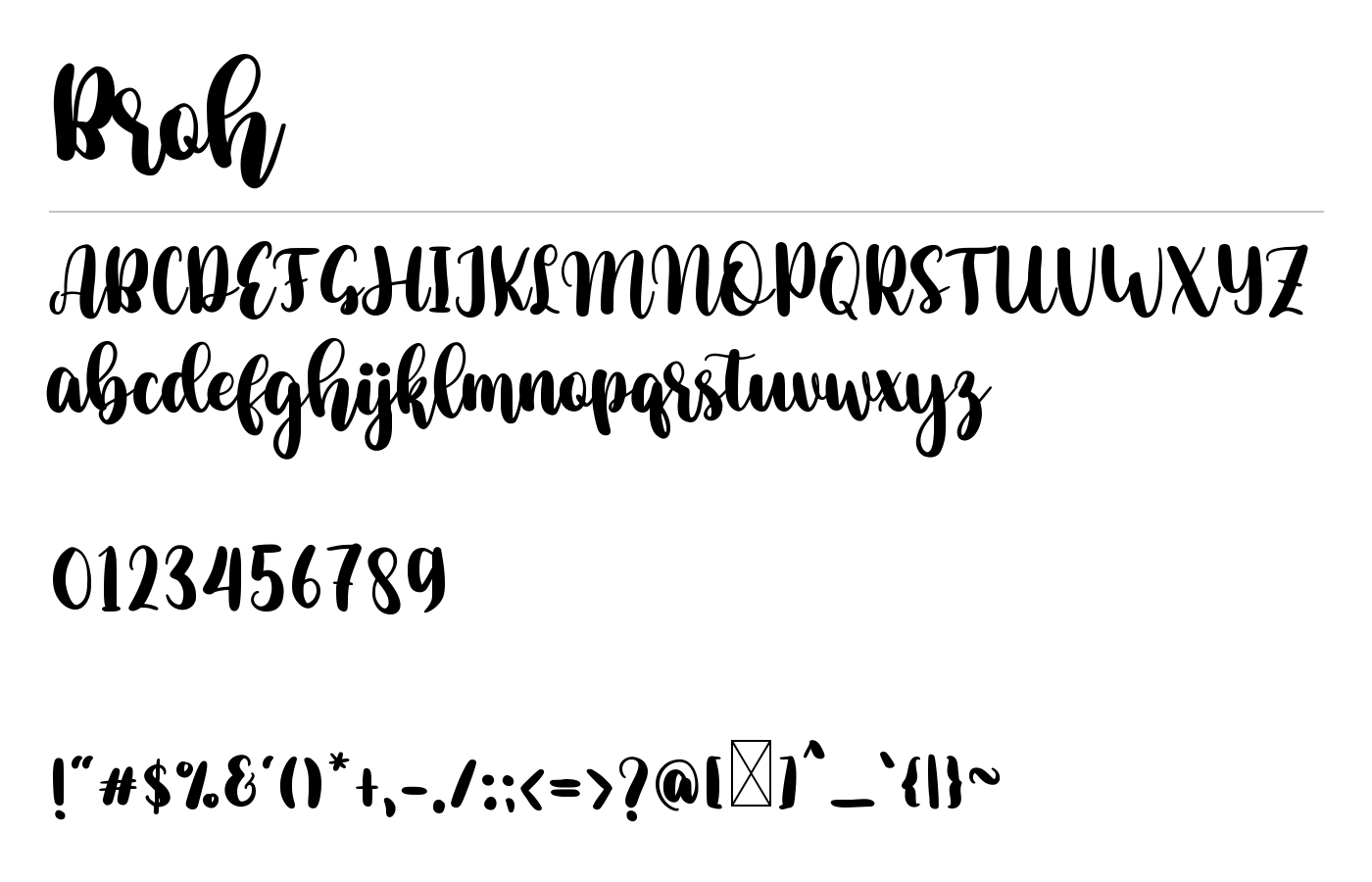
Broh Font is a lively and bold script typeface featuring smooth, flowing curves and a confident brush-like stroke that gives it a friendly, artistic charm. Its thick and high-contrast letterforms are ideal for playful yet elegant branding, invitations, and headlines where a personal, handcrafted feel is desired. This font shines in creative projects that need a warm, approachable, and stylish touch.
Broh Font
About Broh Font
| Designer | Dian Haniffan Hadi |